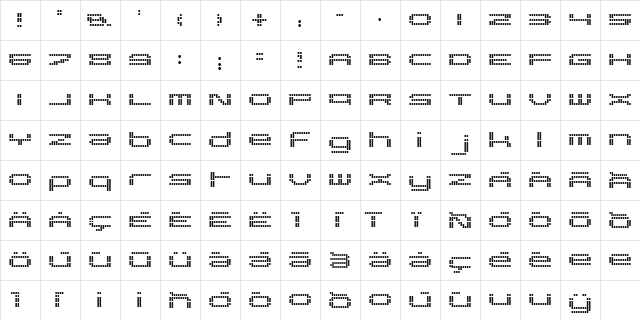
TG Parix regula
| Foundry | Linotype Library GmbH |
| Designer | Michael Parson |
Design Context for TG Parix Typeface
TG Parix takes a measured approach to typography — its balanced proportions and neutral character make it a reliable workhorse for both digital and print work.